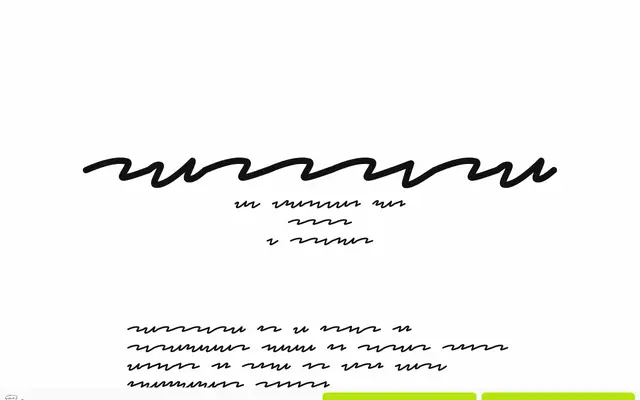
Not Your Type · Xiaoyuan Gao · 2024
Seven display styles by Xiaoyuan Gao, each drawn using a different unconventional tool — from a trackpad to the left hand to Glyph Drawing Club.
Each style in the family is named after the instrument used to draw it, making the production method the defining concept. The result is a deliberately rough, process-driven collection where no two styles share the same texture or rhythm. Coverage is English-only with a basic Latin glyphset, suited to expressive editorial or personal projects rather than extended text.
A collection of seven experimental styles each drawn with a different unconventional tool or method, placing it firmly in the display/experimental category with no consistent structural classification across styles.